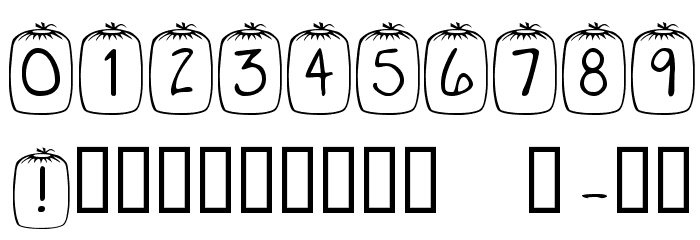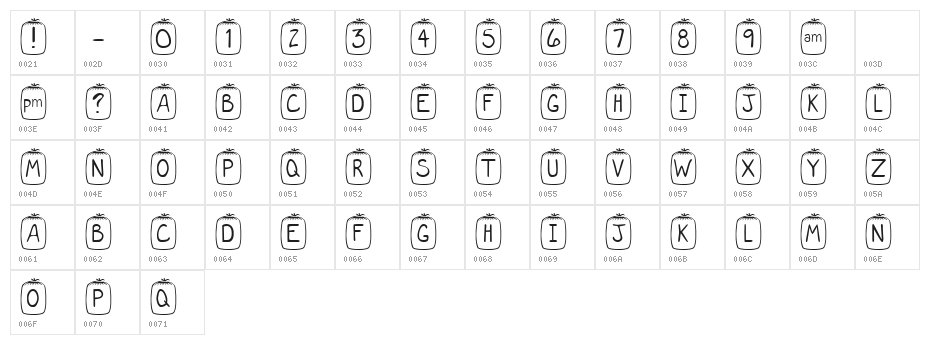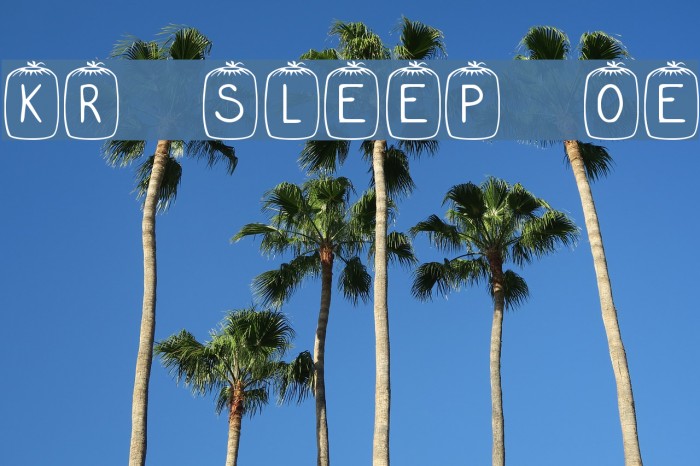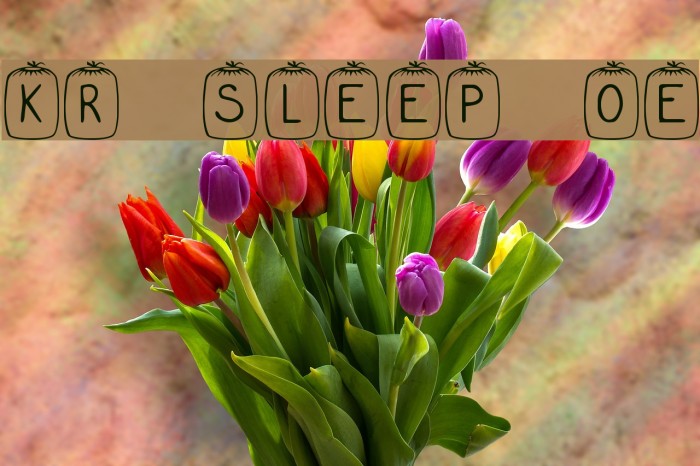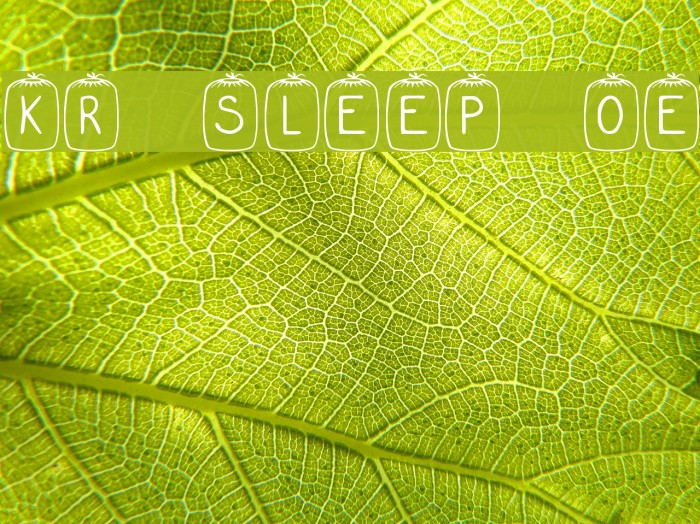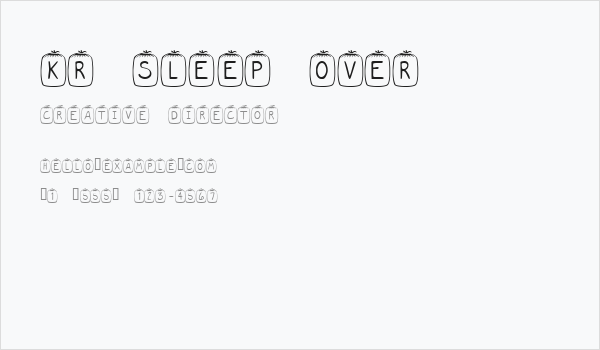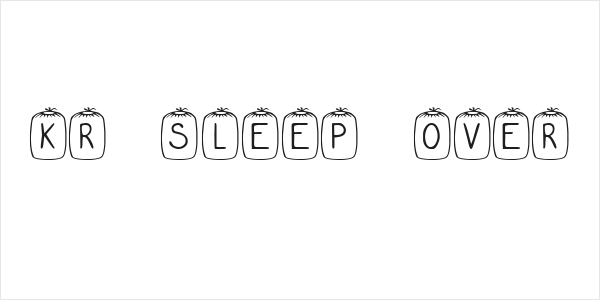
KR Sleep Over Font
KR Sleep Over Description
This playful and whimsical font features characters enclosed in a rounded, pillow-like shape, giving it a unique and friendly appearance. Each letter and number is centered within its own soft, cushiony border, resembling a stitched or sewn design. The font has a hand-drawn quality, with slightly irregular lines that add to its charm. The uppercase and lowercase letters maintain a consistent style, while the numbers and special characters follow the same cozy theme. This font is ideal for projects that require a fun and approachable aesthetic.